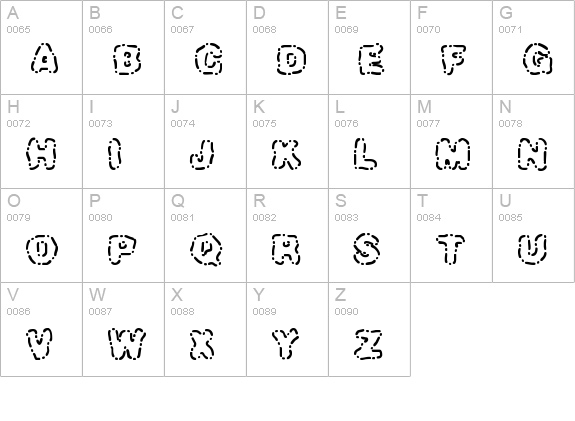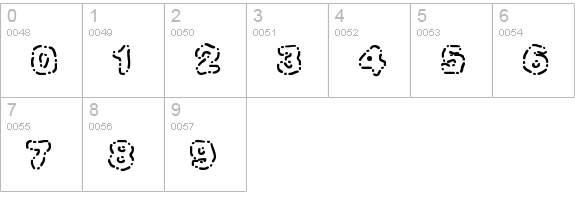
Dash Dot (BRK) Font Details
Dash Dot (BRK) font is a modern and stylish typeface that features a unique blend of dashes and dots to create a captivating visual appeal. This font exudes a sense of creativity and innovation, making it perfect for a wide range of design projects. Its clean lines and bold strokes make it ideal for headlines, logos, posters, and other graphic design applications. What sets Dash Dot (BRK) font apart is that it is available for free! Yes, you read that right. This stunning font can be downloaded at no cost from FontsMarket.com, making it accessible to designers and creatives who are looking to add a touch of flair to their projects without breaking the bank. Whether you're working on a branding project, creating social media graphics, or designing a website, Dash Dot (BRK) font is sure to make a statement. Its versatility and modern aesthetic make it a must-have in any designer's toolkit. Download Dash Dot (BRK) font today and elevate your designs with this eye-catching typeface.